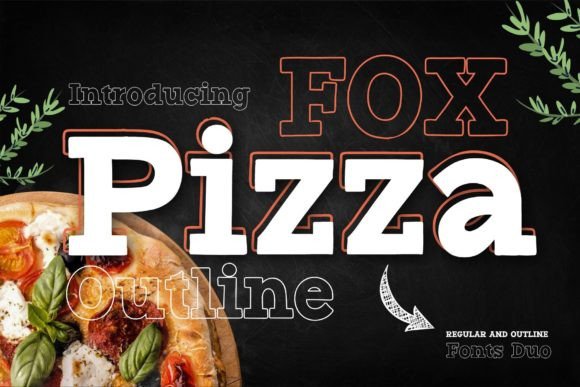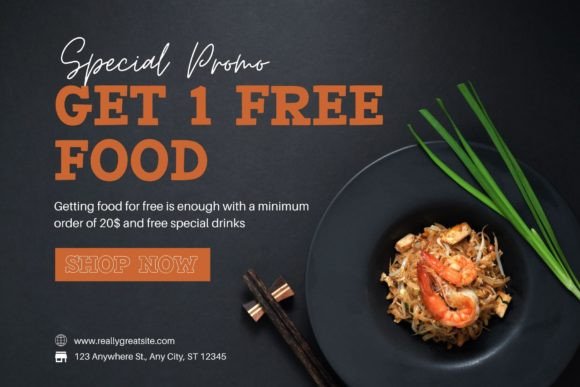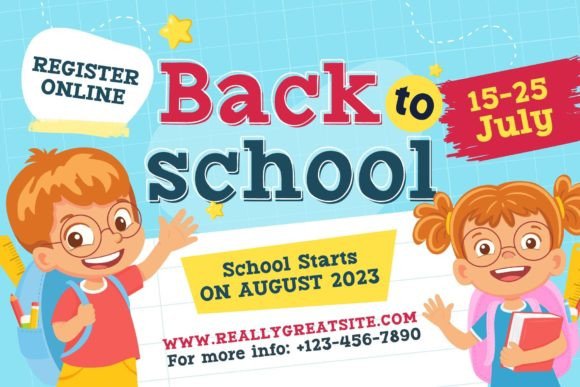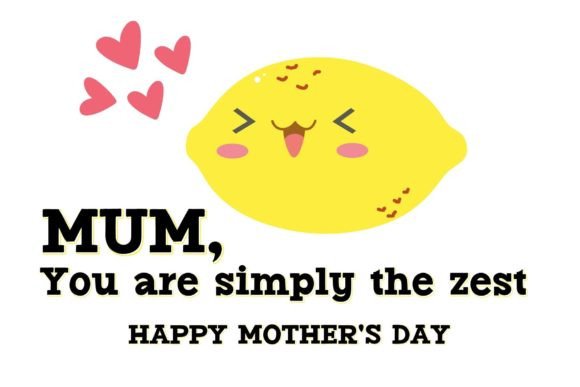
Fox Pizza Font: A Bold Display Font for Menus & Logo Design
About the Fox Pizza Font
Make a bold statement with Fox Pizza Font, a powerful and memorable font. Fox Pizza is a cool and modern slab serif font. This font is perfect for publications, menus, logos, business cards, or printed on t-shirts, this font will look outstanding on everything, no matter the topic. This font will be an incredible asset to your fonts’ library, as it has the potential to elevate any creation.
Fox Pizza’s strong, geometric slab serifs make it ideal for headlines, logos, and short-form text in branding materials and posters. Its modern feel works well for packaging of food products or products targeting a younger demographic. However, its bolder weight and strong character make it less suitable for body text or UI elements requiring high readability in long blocks of text.
This font’s confident and slightly playful personality pairs well with clean sans-serif fonts like Open Sans or Lato for a balanced contrast. For a more vintage or retro feel, consider pairing it with a classic serif like Garamond or a script font like Great Vibes, though use these sparingly as accents.
The overall effect is a design that is both bold and approachable, perfect for brands emphasizing a modern yet friendly image.
Fox Pizza Font Usage Examples
Fox Pizza Font Example